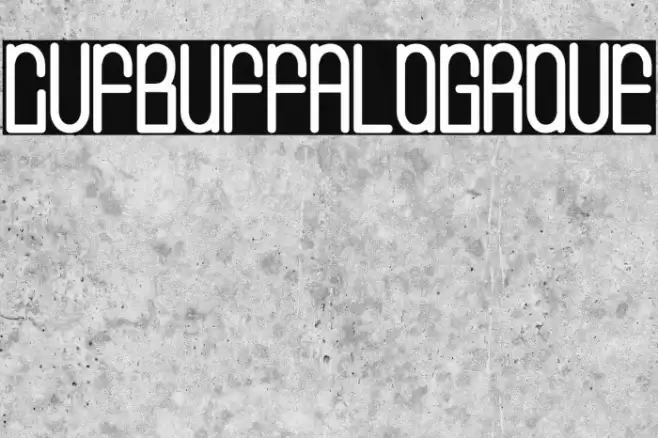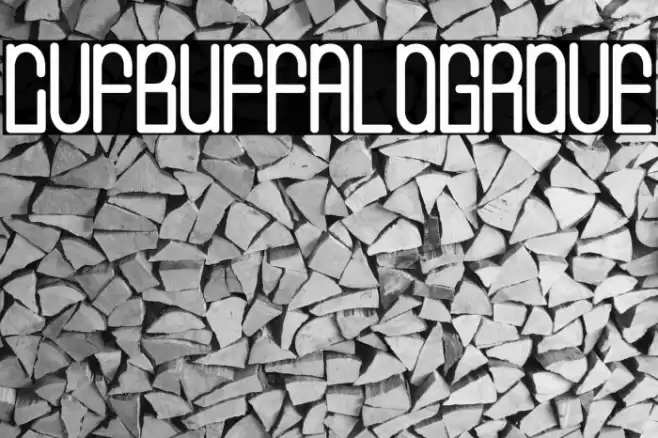
CVFBuffaloGrove Font
CVFBuffaloGrove Description
This font features a modern, geometric design with rounded edges and a consistent stroke width, giving it a sleek and contemporary appearance. The uppercase letters are bold and uniform, while the lowercase letters maintain the same geometric style, creating a cohesive look. The numerals are clear and easy to read, matching the overall aesthetic of the font. Special characters are included, maintaining the same design principles. This font is ideal for projects that require a modern and clean look, such as branding, advertising, and digital media.
A modern, geometric font with rounded edges and consistent stroke width from Fancy fonts.
- Proposed Projects: Ideal for branding, advertising, digital media, and modern design projects.
- Use Case: Headlines, Logos, Branding